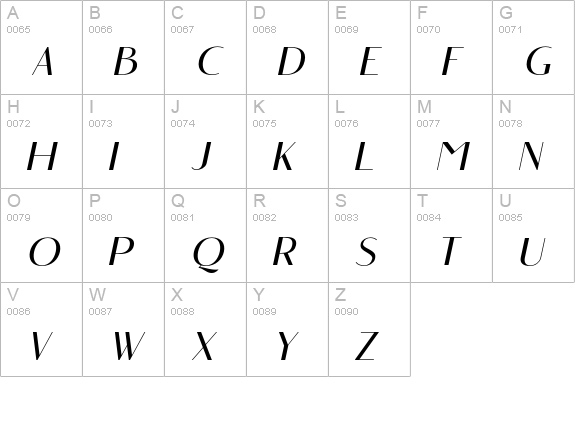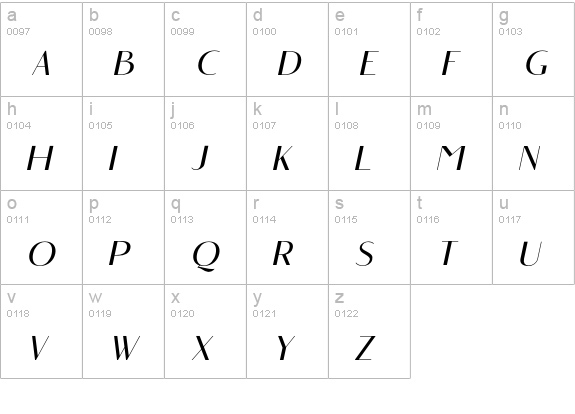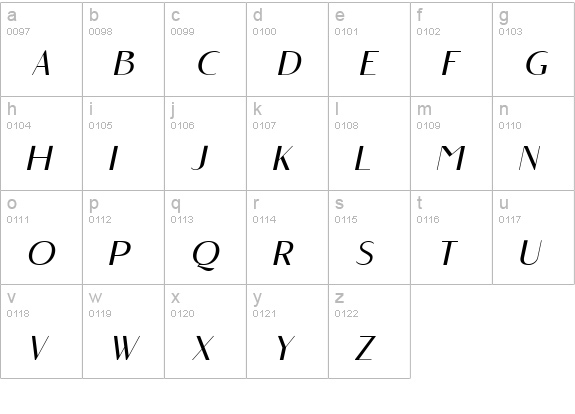
angelic bonques sans italic is a distinctive, italic variant in the angelic typeface family \xE2\x80\x94 well suited to design and typography projects.
Angelic Bonques is a stunning and elegant font that exudes a sense of grace and sophistication. With its delicate curves and refined details, this font is perfect for adding a touch of beauty to your projects. The angelic qualities of this font make it a standout choice for invitations, quotes, branding, and more.